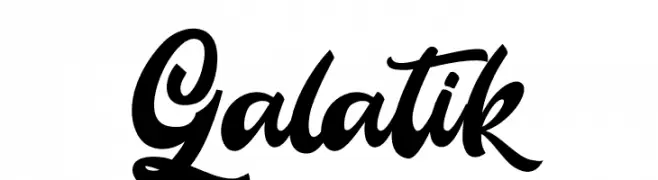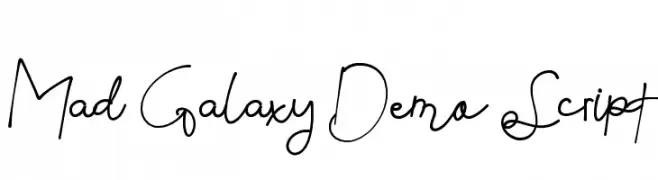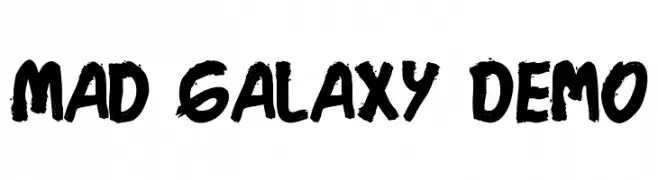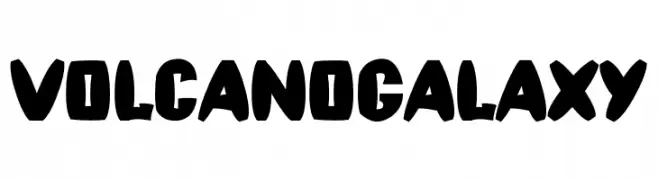
A bold, futuristic font with a two-tone, striped design.
A futuristic, line-based font with a bold, modern aesthetic.
A bold, futuristic font with angular shapes and dynamic slants, ideal for striking headlines.
A bold, italicized font with a halftone effect, perfect for modern and dynamic designs.
A bold, playful font with rounded, hand-drawn characters.
A dynamic and elegant script font with flowing, cursive letterforms.
A whimsical, flowing script font with a playful, handwritten style.
A bold, brush-style font with dynamic and expressive strokes.
A classic serif font with high contrast and elegant strokes, perfect for formal use.
A bold, expressive script font with high contrast and dynamic curves.